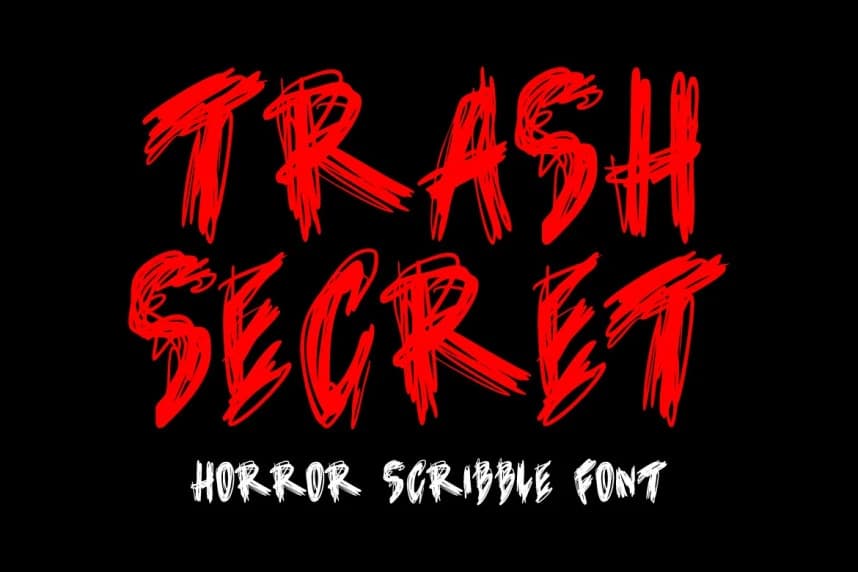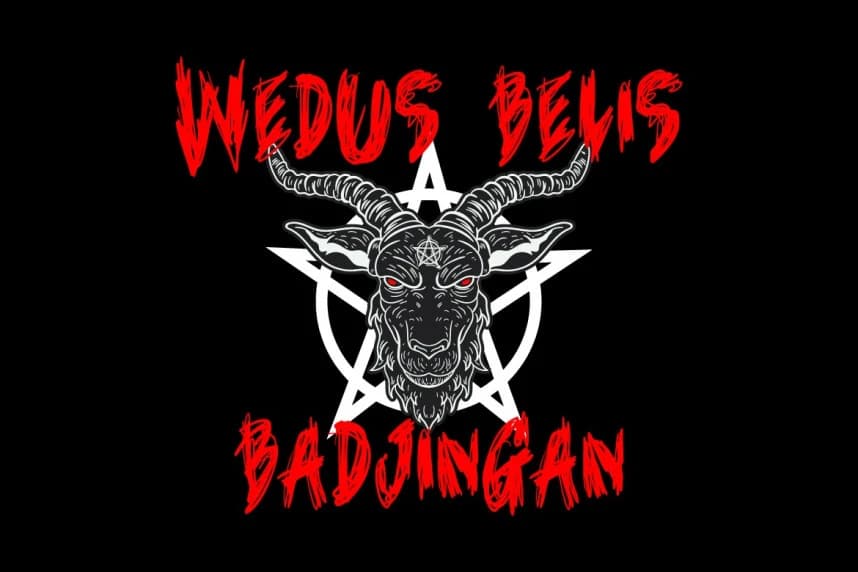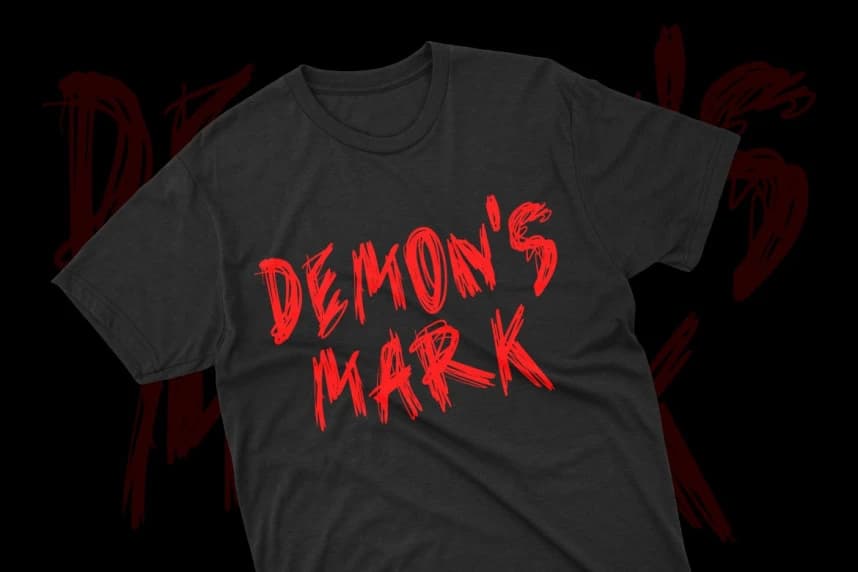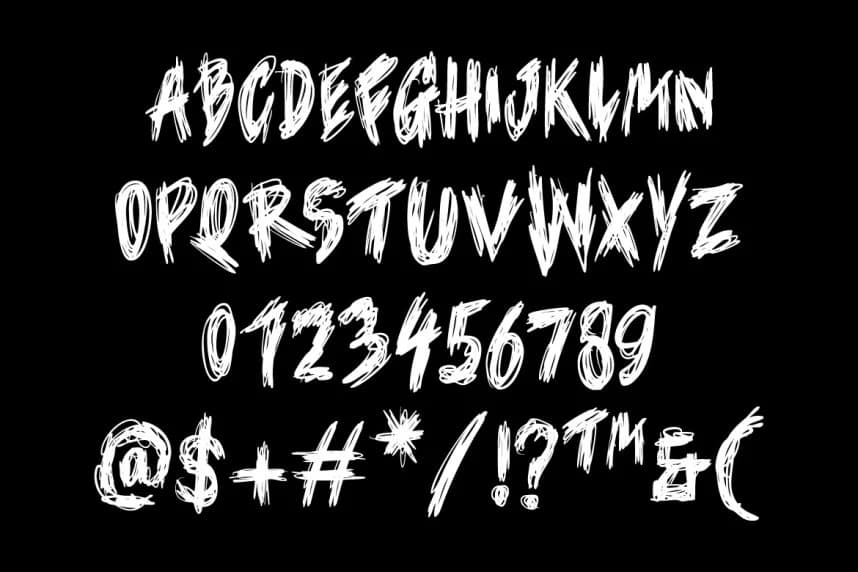
Trash Secret Font
Trash Secret Font is a wild expression of creativity, meticulously hand-drawn in a scribbled, chaotic style. It’s the embodiment of rebellious artistry that’s ideal for a wide array of design applications.